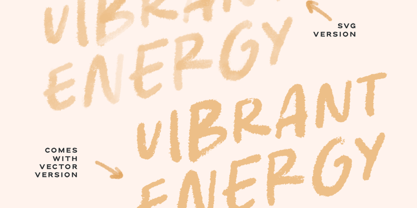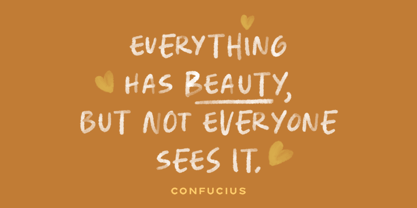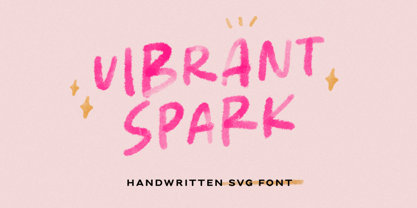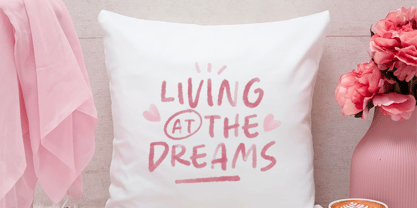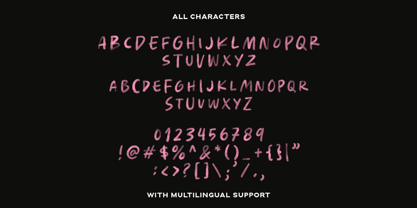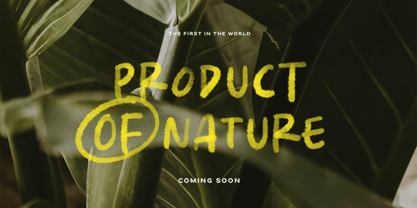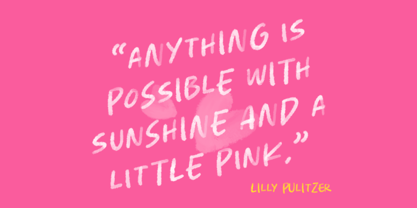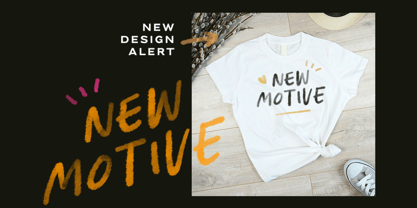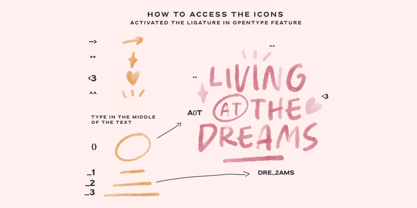
Vibrant Spark
by Sarid Ezra
The Vibrant Spark Font Family was designed by Sarid Ezra and published by Sarid Ezra. Vibrant Spark contains 2 styles and family package options.
Vibrant Spark is a quotable SVG Font. Comes with SVG format and also with a vector. Including different lowercase and uppercase that you can use randomly. By combining the uppercase and lowercase in a word, your design will looks more natural and handmade. The special part is, this font also contains some icons that will make your project more attractive. This font is suitable for quotes and more. Number, symbol, and another punctuation also included in this fonts. Support multilingual!